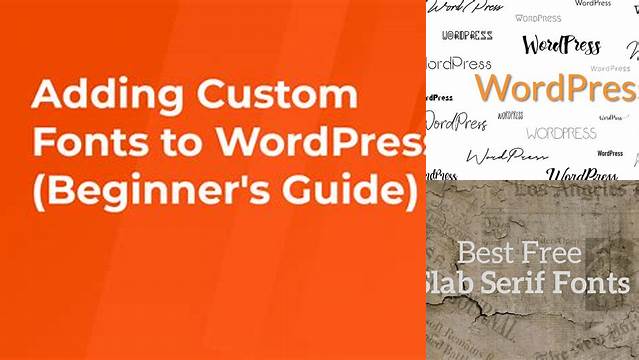
Best Free Fonts For WordPress: Enhance Your Site's Design
Hey guys! Are you looking to jazz up your WordPress site with some fresh, eye-catching fonts? You've come to the right place! In this comprehensive guide, we'll dive deep into the world of free fonts for WordPress, exploring how to find, install, and use them effectively. Your website's typography plays a crucial role in its overall design and user experience. Choosing the right fonts can make your content more readable, engaging, and on-brand. But let's face it, premium fonts can be pricey. That's why we're focusing on amazing free options that won't break the bank. We'll cover everything from where to find these hidden gems to how to seamlessly integrate them into your WordPress site, ensuring it looks professional and polished without spending a dime. Get ready to unlock the power of typography and transform your website with stunning, cost-free fonts. Whether you're a blogger, business owner, or designer, this guide will equip you with the knowledge and resources to make informed font choices and elevate your online presence. So, let's jump in and discover the endless possibilities of free fonts for WordPress!
Why Typography Matters for Your WordPress Site
Let's talk about why typography is so crucial for your WordPress site. It's not just about making your text look pretty, although that's a nice bonus! Typography directly impacts how your audience perceives your brand and interacts with your content. Think of it this way: your fonts are the voice of your website. A well-chosen font can convey professionalism, trustworthiness, and personality. A poorly chosen one can make your site look amateurish and even drive visitors away. Imagine reading a serious business proposal written in Comic Sans – not the best impression, right? When you use the right font, readability improves dramatically. Clear, legible text keeps visitors engaged and encourages them to explore your site further. If your content is hard to read, people will simply bounce, no matter how valuable the information is. Good typography creates a visual hierarchy, guiding the reader's eye through your content. Headings, subheadings, and body text should have distinct styles that make it easy to scan and understand the structure of your pages. Consider your brand's personality. Are you aiming for a modern, minimalist vibe? Or a more classic, traditional feel? Your font choices should reflect your brand identity and create a cohesive visual experience. Think about fonts like colors; they evoke different emotions and associations. For example, a clean sans-serif font might convey a sense of modernity and simplicity, while a serif font might suggest tradition and authority. By carefully selecting your fonts, you're essentially crafting the visual tone of your website. Ultimately, effective typography enhances user experience. A site that's easy to read and visually appealing keeps visitors happy and coming back for more. And that, guys, is what we all want, right?
Where to Find Free Fonts for WordPress
Okay, so you're convinced that typography is important, but where do you actually find these amazing free fonts? Don't worry, there are tons of resources out there! Let's explore some of the best places to score high-quality, cost-free fonts for your WordPress site. First up, we have Google Fonts. This is probably the most well-known and widely used resource for free fonts, and for good reason. Google Fonts offers a massive library of open-source fonts that are completely free to use, even for commercial projects. The best part? They're super easy to integrate with WordPress. You can browse fonts by categories (serif, sans-serif, display, handwriting, etc.), popularity, or trending styles. Plus, you can preview how fonts look in different sizes and styles, making it easy to find the perfect match for your brand. Next on the list is Adobe Fonts. While Adobe Fonts is primarily a subscription-based service, they also offer a generous selection of free fonts as part of their basic plan. You'll need an Adobe account to access these fonts, but it's free to sign up. The quality of Adobe Fonts is top-notch, and their integration with WordPress is seamless, especially if you're already using Adobe Creative Cloud. Another fantastic option is Font Squirrel. This website is a treasure trove of free fonts, all of which are licensed for commercial use. Font Squirrel hand-selects fonts that are of high quality and legally safe to use, saving you the hassle of sifting through questionable sources. They also offer a handy Font Identifier tool that helps you identify fonts from images, which is super useful if you've spotted a font you love but don't know its name. Don't forget about individual font foundries and designers! Many independent typographers offer free fonts as a way to showcase their work and build their portfolio. Websites like Behance and Dribbble are great places to discover these hidden gems. Just be sure to check the licensing terms before using any font, as they may vary from designer to designer. Finally, keep an eye out for free font bundles and promotions. Websites like Creative Market and Design Cuts often offer bundles of fonts at discounted prices or even for free during special promotions. Signing up for their newsletters is a great way to stay informed about these deals. So, there you have it – a bunch of awesome places to find free fonts for your WordPress site. Now, let's move on to how to actually install and use them!
Tips for Choosing the Right Free Fonts
Okay, guys, you've got access to a huge library of free fonts, but how do you choose the right ones for your WordPress site? It's not just about picking fonts that look cool; it's about selecting fonts that align with your brand, enhance readability, and create a positive user experience. Let's dive into some tips for making the best font choices. First and foremost, consider your brand identity. What kind of message are you trying to convey? Are you aiming for a modern, minimalist feel, or a more classic, traditional vibe? Your fonts should reflect your brand's personality and create a cohesive visual identity. For example, a tech company might opt for a clean, sans-serif font like Montserrat or Open Sans, while a luxury brand might choose a more elegant serif font like Playfair Display or Merriweather. Readability is key. No matter how stylish a font looks, if it's difficult to read, it's a no-go. Your primary goal should be to make your content as accessible as possible. Stick to fonts that are clear and legible, especially for body text. Sans-serif fonts tend to be more readable on screens, but some serif fonts also work well, particularly for headings and titles. Consider the font size and line height, as these factors also impact readability. A good rule of thumb is to use a body text size of at least 16 pixels and a line height of 1.5 or higher. Limit the number of fonts you use. It's tempting to go crazy and use a bunch of different fonts, but resist the urge! Using too many fonts can make your site look cluttered and unprofessional. A good approach is to choose one or two fonts: one for headings and another for body text. If you want to add more variety, you can use different weights and styles within the same font family (e.g., regular, bold, italic). Pay attention to font pairing. Some fonts naturally complement each other, while others clash horribly. If you're using more than one font, it's important to choose fonts that work well together. A classic pairing is a serif font for headings and a sans-serif font for body text, or vice versa. Resources like FontPair and Canva's Font Combinations tool can help you find harmonious font pairings. Consider the context. The type of content you're creating will also influence your font choices. A blog post might call for a different font than a landing page or an e-commerce product description. Think about the purpose of each page and choose fonts that support that purpose. Test, test, test! Before you finalize your font choices, test them out on different browsers and devices to make sure they display correctly. Check the font rendering on both desktop and mobile, and ask a few friends or colleagues to give you their feedback. Sometimes, what looks great on your screen might not look so great on someone else's. Choosing the right fonts is a process of trial and error. Don't be afraid to experiment and try out different combinations until you find what works best for your brand and your audience. With a little practice, you'll become a typography pro in no time!
Best Free Font Options for WordPress
Now that we've covered where to find free fonts and how to choose them, let's get down to the fun part: exploring some specific font options! There are thousands of free fonts out there, but let's highlight some of the best free fonts that work beautifully on WordPress sites. These fonts are not only stylish and readable but also widely available and easy to use. First up, we have Open Sans. This is a classic sans-serif font that's incredibly versatile and readable. Open Sans is a great choice for body text, but it also works well for headings and titles. Its clean, modern design makes it a popular choice for websites across various industries. Next, let's talk about Roboto. Another excellent sans-serif font, Roboto has a slightly more geometric feel than Open Sans. It's highly legible and works well in a variety of sizes, making it a great option for both body text and headlines. Roboto is a Google font, so it's super easy to integrate into your WordPress site. If you're looking for a serif font with a touch of elegance, Playfair Display is a fantastic choice. This font has a high contrast and a distinctive style that makes it perfect for headings, titles, and logos. Playfair Display pairs beautifully with sans-serif fonts like Montserrat or Lato for body text. For a more modern and minimalist vibe, consider Montserrat. This sans-serif font has a clean, geometric design that's both stylish and readable. Montserrat is a great all-around font that works well for headings, body text, and even navigation menus. If you need a font that's specifically designed for on-screen readability, Lato is an excellent option. This sans-serif font has a warm and friendly feel, making it a great choice for blogs and websites with a conversational tone. Lato is highly legible in a variety of sizes, so it's perfect for body text. Looking for a font with a bit of personality? Merriweather is a beautiful serif font that's both elegant and readable. This font is perfect for long-form content, like blog posts and articles, as it's designed to be easy on the eyes. For a more playful and quirky font, check out Raleway. This sans-serif font has a distinctive style with a slightly rounded feel. Raleway works well for headings, logos, and other design elements where you want to add a touch of personality. Last but not least, let's mention Poppins. This geometric sans-serif font is clean, modern, and highly versatile. Poppins is a great choice for websites that want to convey a sense of professionalism and sophistication. These are just a few of the many amazing free fonts available for WordPress. Don't be afraid to explore other options and experiment with different combinations until you find the perfect fonts for your site. Remember to consider your brand identity, readability, and overall design aesthetic when making your choices. Happy font hunting!
So there you have it, guys! A comprehensive guide to free fonts for WordPress. We've covered why typography matters, where to find amazing free fonts, how to install them, tips for choosing the right ones, and some of the best free font options available. Hopefully, you're feeling inspired and ready to transform your website with stunning typography. Remember, choosing the right fonts can make a huge difference in how your website looks and feels. It's not just about aesthetics; it's about creating a positive user experience, conveying your brand identity, and making your content more readable and engaging. With the vast array of free fonts available, there's no need to spend a fortune on premium options. You can create a professional, polished website without breaking the bank. Take some time to explore the resources we've mentioned, experiment with different fonts, and find the perfect match for your brand. Whether you're a blogger, business owner, or designer, the power of typography is at your fingertips. So go ahead, unlock your creativity and give your WordPress site the font makeover it deserves! And remember, if you ever feel overwhelmed or unsure, this guide is here to help. Happy designing!